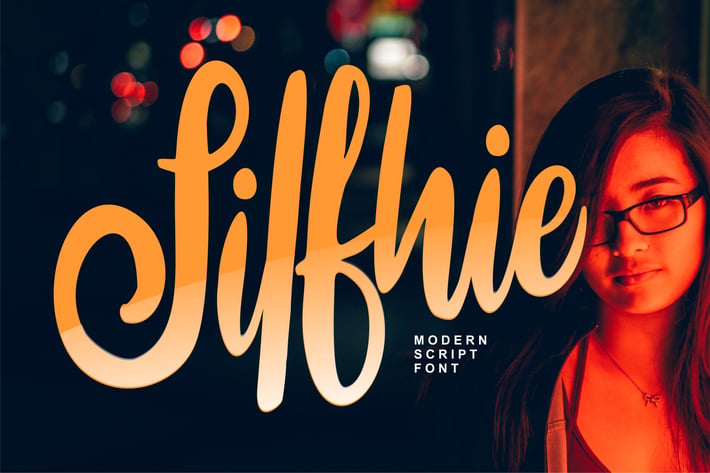
Silfhie | Modern Script Font
Silfhie | Modern Script Font with a calligraphy style, So beautiful on invitation like greeting cards, branding materials, business cards, quotes, posters, and more!